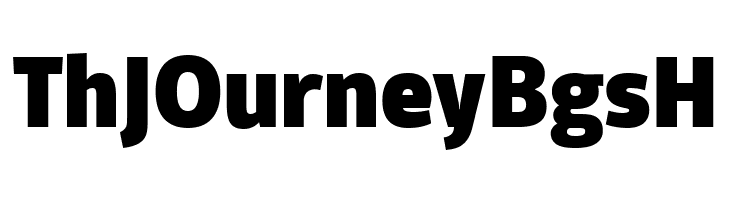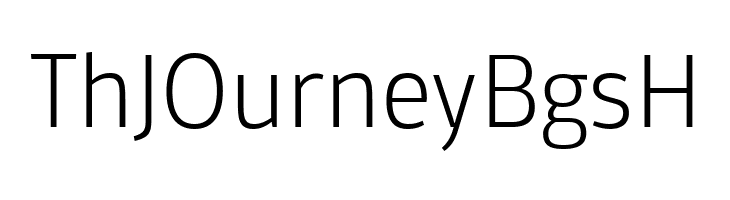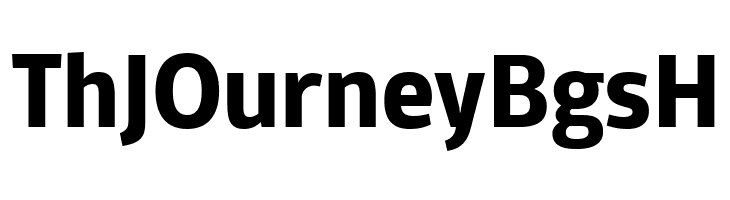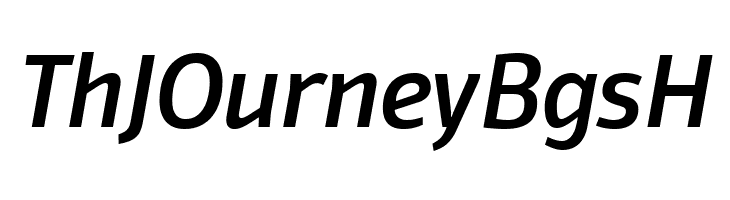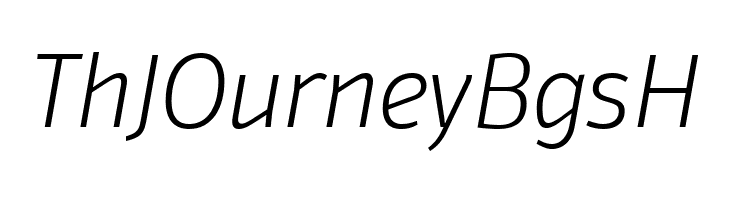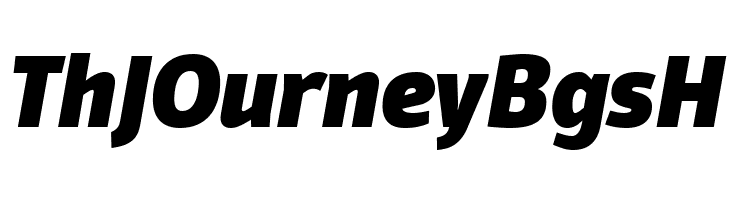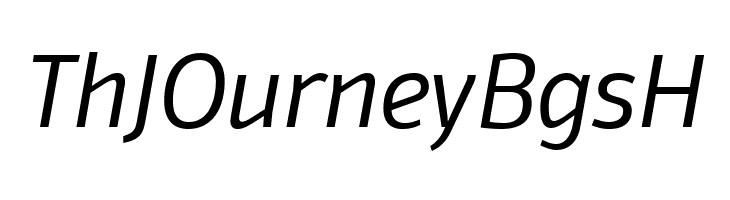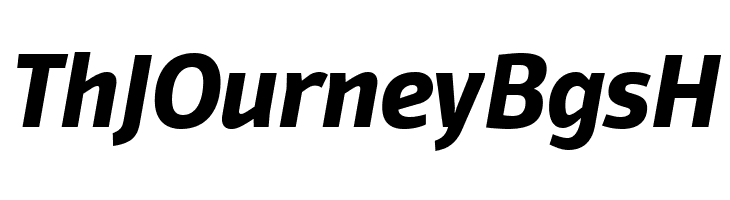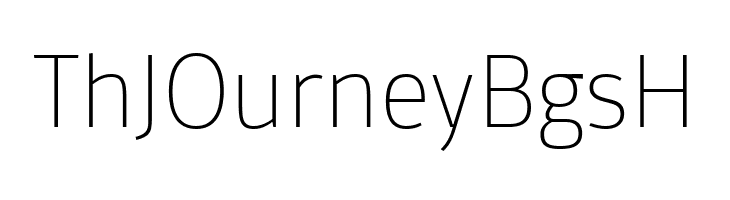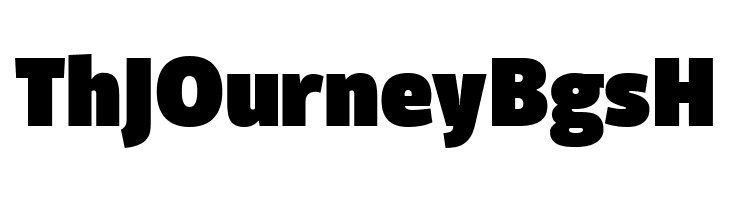
Domotika Trial Heavy Italic Font
A bold, heavy, italic font with a modern and dynamic style.
A bold, modern sans-serif font with clean, geometric lines.
A bold, modern font with thick, uniform strokes and a geometric influence.
A bold, geometric font with a strong and modern presence.
A bold, italic font with a dynamic and energetic style.
A clean, modern font with geometric precision and simplicity.
A modern, medium-weight italic font with clean lines and excellent legibility.
A modern italic font with clean lines and consistent stroke width.
A sleek, modern, light italic font with a minimalistic design.
A modern, elegant italic font with thin strokes and a sleek design.
A sleek, modern thin italic font with elegant, clean lines.
A sleek, modern font with thin, uniform strokes and excellent readability.